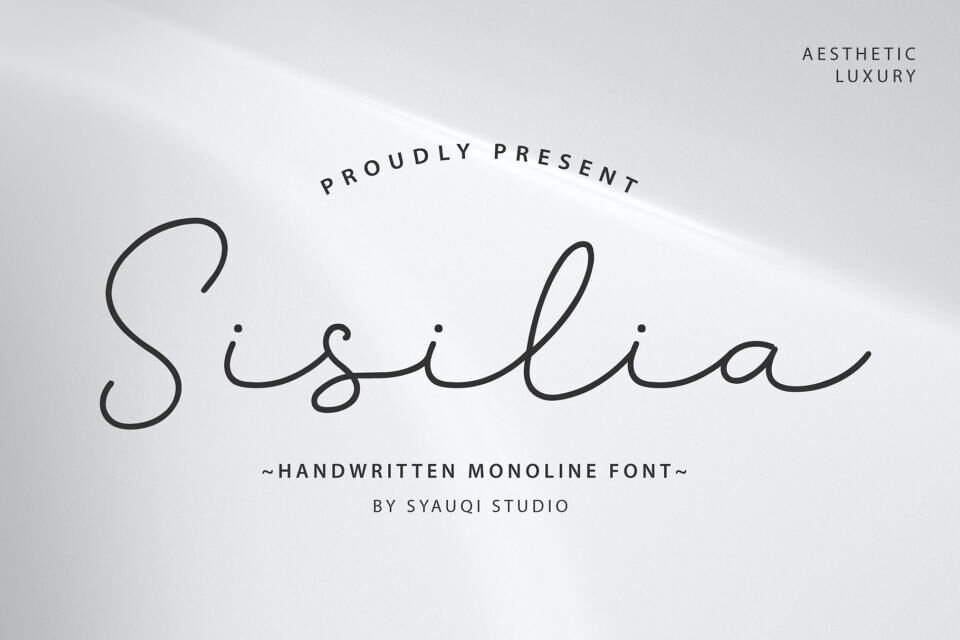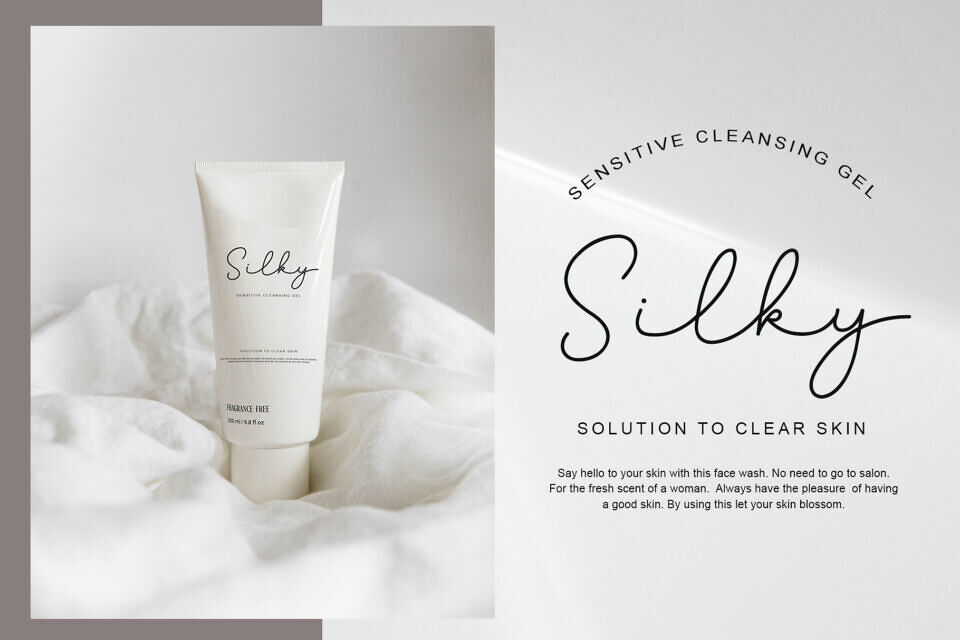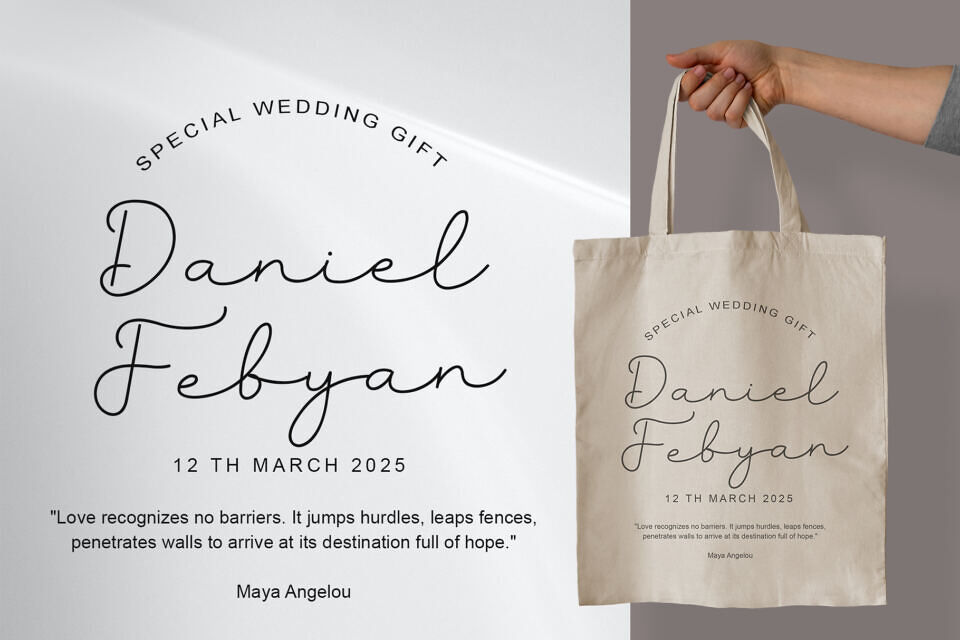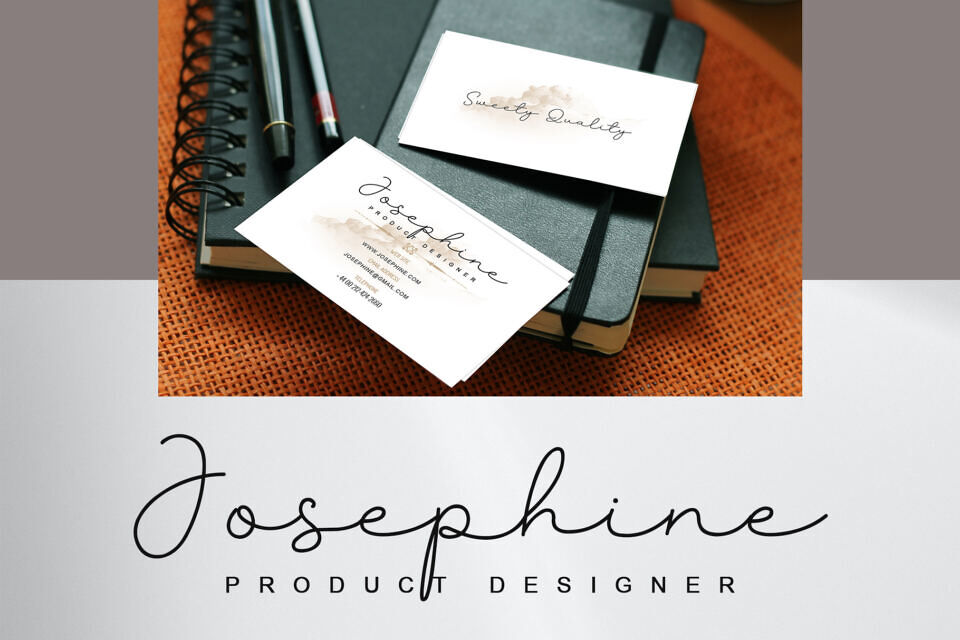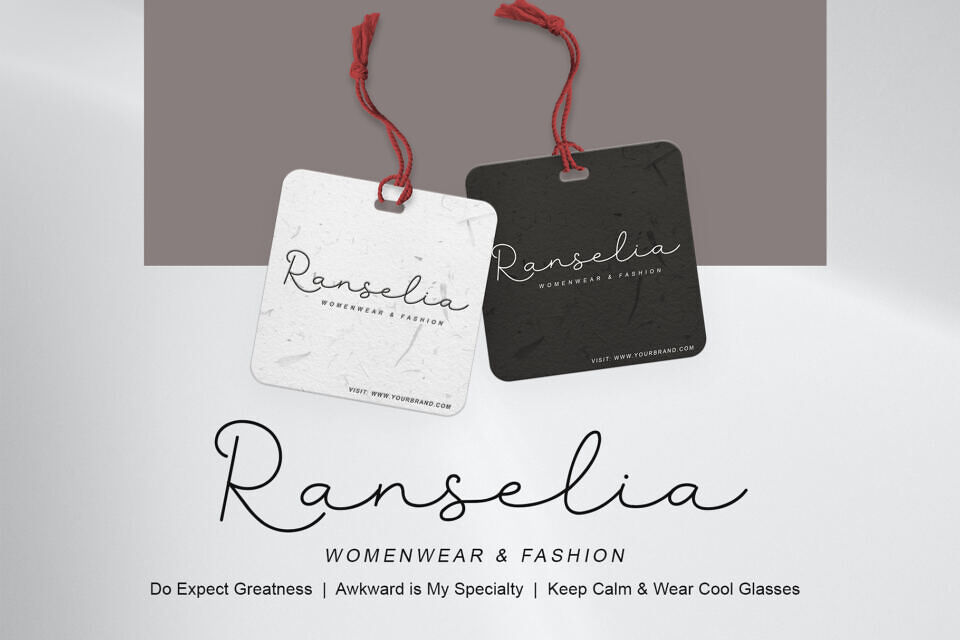
Sisilia Font
The Sisilia Script style offers a modern, elegant touch with its handwritten feel. It’s perfect for projects requiring a personal, stylish flair. Suitable uses include photography, social media, logos, invitations, and product designs, as well as weddings, special events, and branding that needs a handwritten look. Its natural, sophisticated style makes it versatile for various applications.